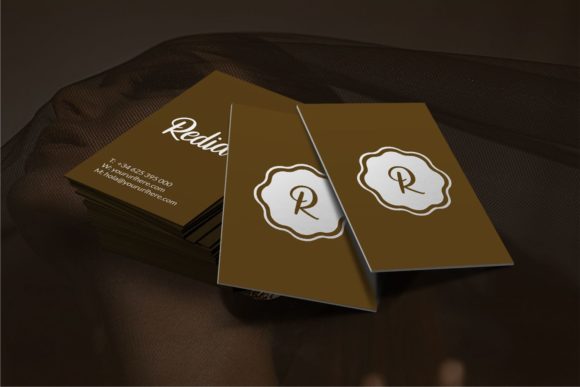
Introducing Andetia Font: The Ultimate Choice for Bold and Stylish Headlines
Are you tired of using the same old fonts for your headlines and logotype projects? Do you want to add a touch of nostalgia and personality to your designs? Look no further than Andetia Font, a gorgeous and bold handwritten font that is sure to take your designs to the next level.
What is Andetia Font?
Andetia Font is a carefully crafted handwritten font that is designed to give your headlines and logotype projects a stylish and confident touch. With its bold and dynamic appearance, Andetia Font is perfect for designers who want to create eye-catching and memorable designs.
This font is not just another ordinary font, but a unique and creative solution that can help you stand out from the crowd. Whether you’re working on a branding project, a website design, or a print project, Andetia Font is the perfect choice for adding a touch of personality and style.
Characteristics of Andetia Font
So, what makes Andetia Font so special? Here are some of its key characteristics:
• Bold and Dynamic: Andetia Font has a bold and dynamic appearance that is sure to grab attention.
• Handwritten: This font is carefully crafted to mimic the look and feel of handwritten text, giving it a personal and unique touch.
• Confident: Andetia Font exudes confidence and strength, making it perfect for headlines and logotype projects.
• Nostalgic: This font has a nostalgic feel to it, making it perfect for designs that require a touch of vintage charm.
Uses of Andetia Font
Andetia Font is a versatile font that can be used for a wide range of design projects, including:
• Headlines: Andetia Font is perfect for headlines and titles, where its bold and dynamic appearance can really shine.
• Logotype: This font is also great for logotype projects, where its confident and strong appearance can help create a lasting impression.
• Branding: Andetia Font can be used for branding projects, such as business cards, brochures, and letterheads.
• Web Design: This font can also be used for web design projects, such as website headers, titles, and buttons.
Benefits of Using Andetia Font
So, why should you choose Andetia Font for your design projects? Here are some of the benefits of using this font:
• Unique and Creative: Andetia Font is a unique and creative solution that can help you stand out from the crowd.
• Easy to Read: Despite its bold appearance, Andetia Font is easy to read and understand.
• Versatile: This font can be used for a wide range of design projects, from headlines and logotype to branding and web design.
• Nostalgic Charm: Andetia Font has a nostalgic charm that can add a touch of personality and style to your designs.
How to Use Andetia Font
Using Andetia Font is easy and straightforward. Here are some tips on how to get the most out of this font:
• Choose the Right Size: Andetia Font looks best when used at larger sizes, such as headlines and titles.
• Experiment with Colors: This font looks great in a variety of colors, so don’t be afraid to experiment and find the perfect color for your design.
• Pair with Other Fonts: Andetia Font can be paired with other fonts to create a unique and creative look.
In conclusion, Andetia Font is a gorgeous and bold handwritten font that is perfect for designers who want to add a touch of personality and style to their designs. With its confident and dynamic appearance, Andetia Font is sure to grab attention and leave a lasting impression.
Whether you’re working on a branding project, a website design, or a print project, Andetia Font is the perfect choice for adding a touch of nostalgia and charm. So why not give it a try and see the difference it can make to your designs?